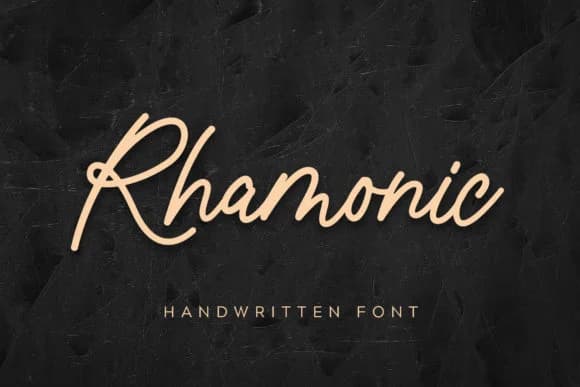
Rhamonic strikes that balance between polish and personality that feels fresh on the page. Created by sancreastd, this script-handwritten typeface brings genuine warmth to any design without sacrificing legibility or professional finish.
The casual, organic flow of the letterforms makes it ideal for wedding invitation suites where elegance and approachability need to coexist comfortably. It shines equally well on Etsy product labels and artisanal packaging, where buyers instinctively trust the handcrafted aesthetic over sterile, corporate type. You'll find it works beautifully across Instagram story graphics, greeting card designs, and hand-lettered poster projects, adding that tangible sense of care that mass-produced fonts simply cannot replicate. The script performs particularly well in short display bursts (headlines, headers, subheadings, social media callouts) where its natural personality can breathe without overwhelming the viewer or creating visual noise. Every letterform feels considered and organic, giving your work a refined, thoughtful character that genuinely resonates with your intended audience.
Layer Rhamonic with a clean geometric sans-serif for body copy or smaller text passages, creating visual contrast while maintaining legibility across long reads. This complementary pairing grounds the script's expressiveness without creating jarring visual tension. Find Rhamonic on Creative Fabrica and bring this distinctive voice to your next creative project.
Rhamonic Font is a script font that shines as a display or heading face. Pair it with a clean sans-serif or serif font for body text β the contrast creates a clear hierarchy while the two styles stay balanced and easy to read.